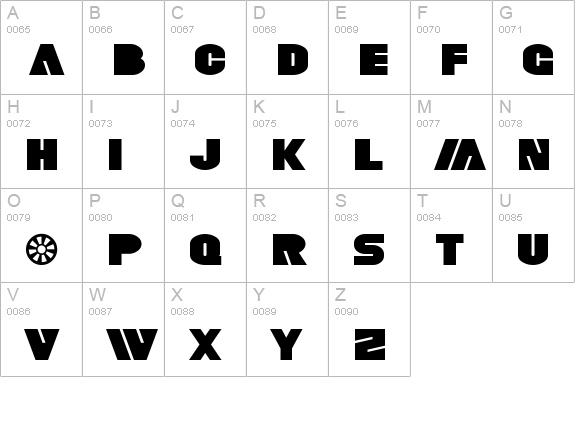
SF Fortune Wheel Extended Font Details
SF Fortune Wheel Extended is a distinctive, extended-width variant in the SF typeface family \xE2\x80\x94 well suited to design and typography projects.
SF Fortune Wheel Extended is a captivating and modern font that will instantly grab your attention. Its sleek and stylish design is perfect for adding a touch of sophistication to any project. With its extended letterforms and unique shapes, this font is sure to make a statement. But what makes SF Fortune Wheel Extended even more appealing is that it is available for free! Yes, you read that right - this amazing font can be yours without spending a dime. Thanks to FontsMarket.com, you can easily download SF Fortune Wheel Extended and start using it in your designs right away. Whether you're working on a branding project, creating eye-catching posters, or designing a stunning website, SF Fortune Wheel Extended has got you covered. Its versatility allows it to be used in various contexts, making it a must-have for any designer or creative professional. Not only does SF Fortune Wheel Extended offer a visually striking aesthetic, but it also provides excellent legibility, ensuring that your message is conveyed clearly and effectively. Its attention to detail and carefully crafted letterforms make it a joy to work with, elevating the overall quality of your designs. Don't miss out on this incredible opportunity to enhance your design toolkit with SF Fortune Wheel Extended. Download it for free today at FontsMarket.com and discover the endless possibilities it brings to your creative projects.